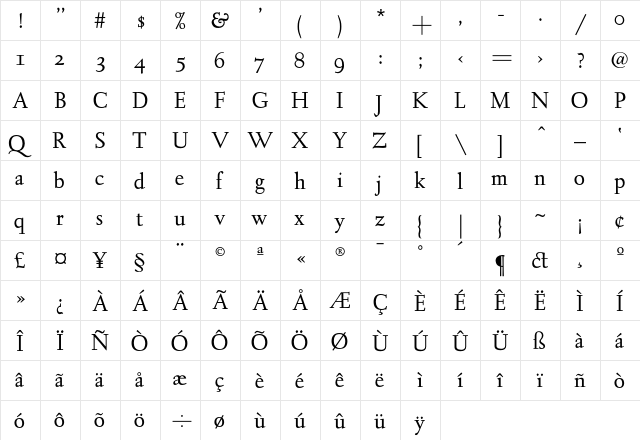
KaatskillH Regular
Design Context for KaatskillH Typeface
KaatskillH takes a measured approach to typography — its balanced proportions and neutral character make it a reliable workhorse for both digital and print work.